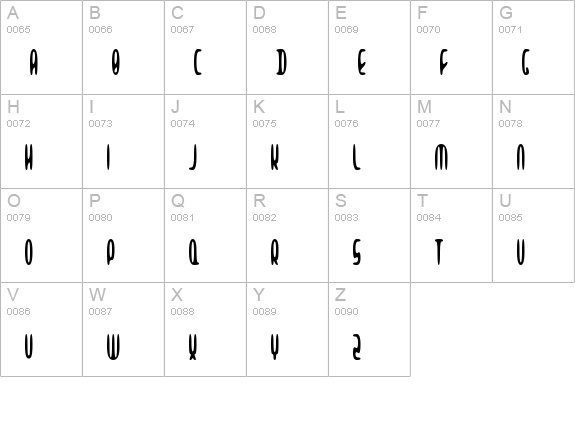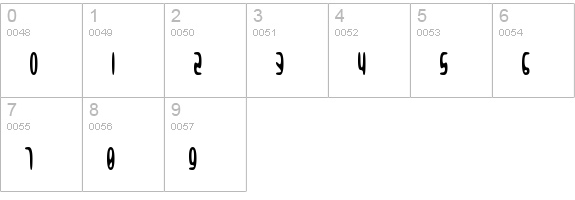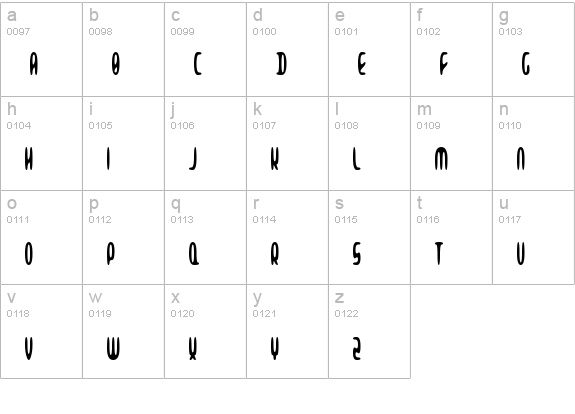
Alien Beasts is a free for personal use font in the Modern > Sci-Fi category, designed by Darrell Flood. It has been downloaded 56 times and is available for Windows, Mac and Linux.
Alien Beasts font is a mesmerizing display typeface that transports you to a futuristic world filled with strange and otherworldly creatures. Designed with intricate detailing and unique shapes, this font is perfect for adding a touch of extraterrestrial charm to your designs. Whether you're working on a science fiction project, a fantasy novel, or simply want to stand out from the crowd, Alien Beasts is sure to captivate your audience.